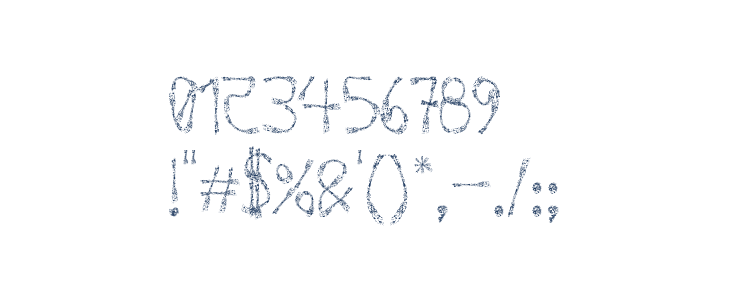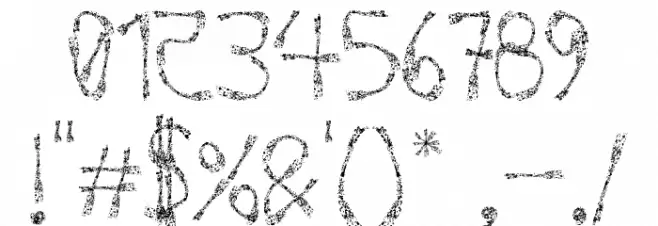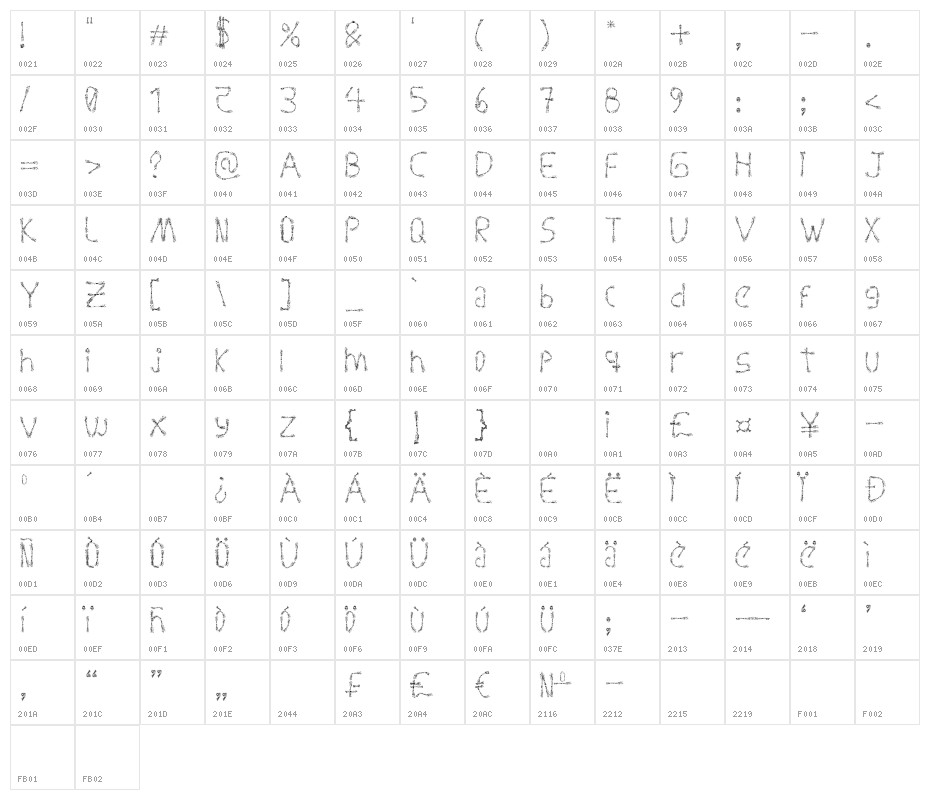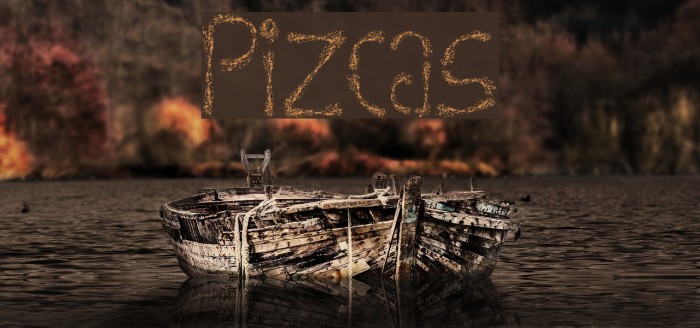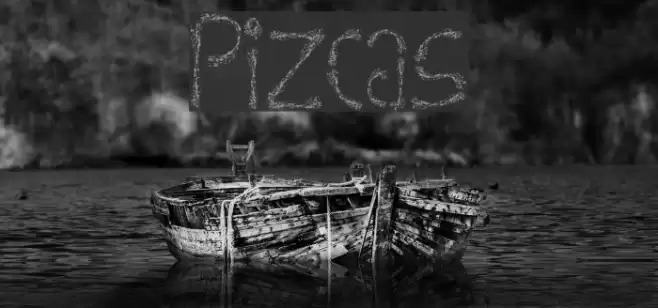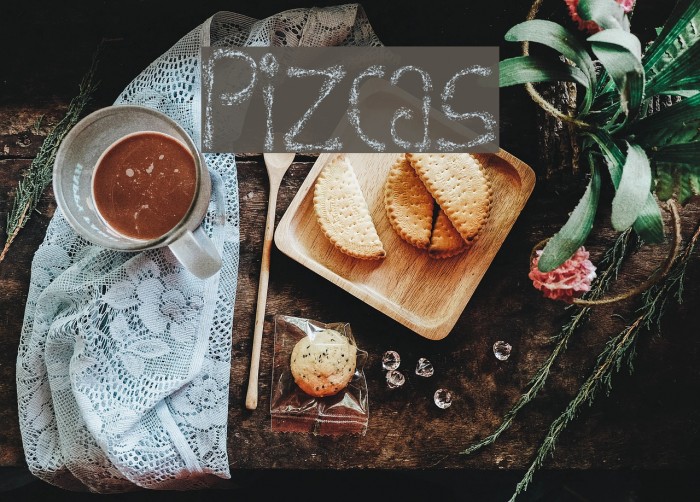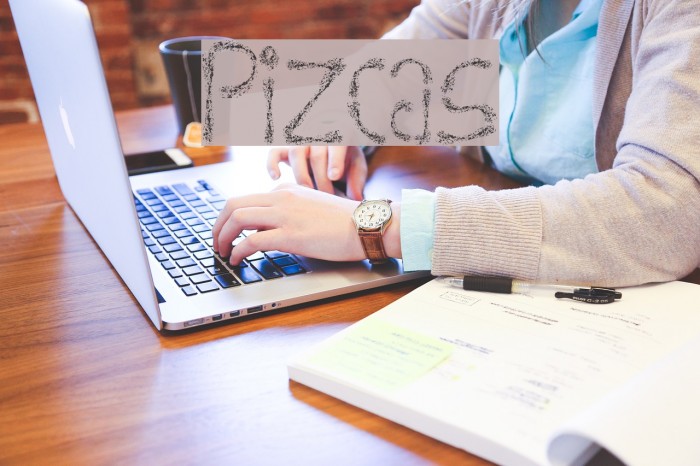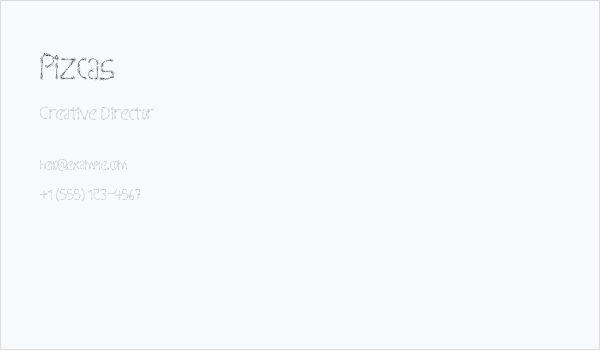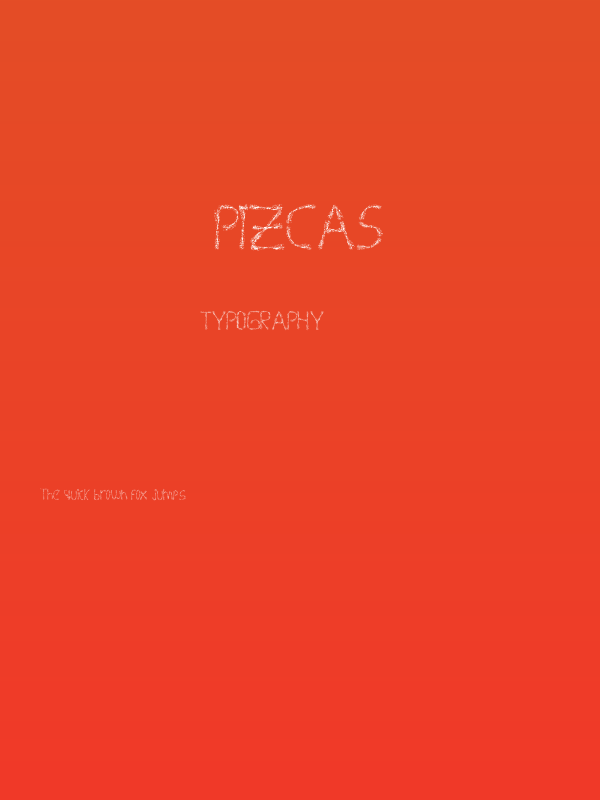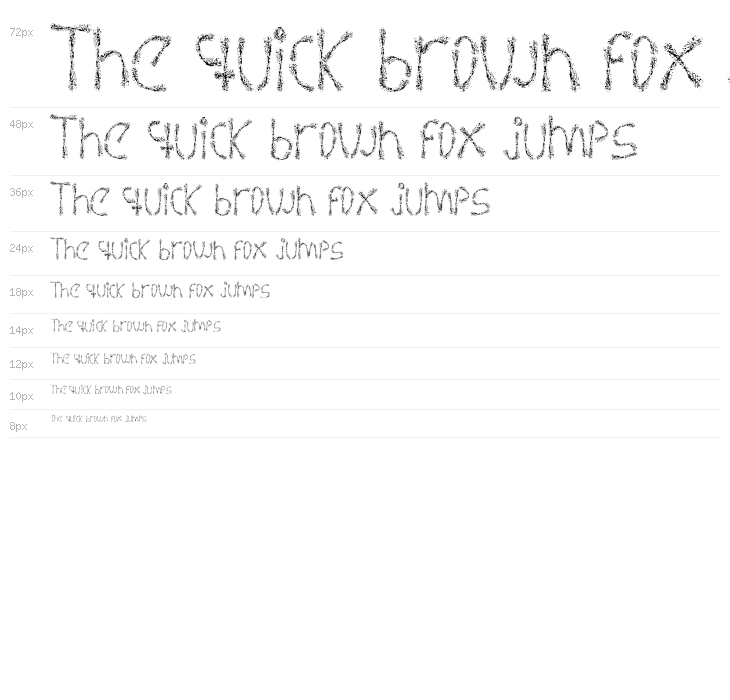
Pizcas Font
Pizcas Description
This font exhibits a unique, textured appearance reminiscent of chalk or crayon strokes, giving it a hand-drawn and artistic feel. The characters are irregular and slightly rough around the edges, contributing to a casual and informal style. Despite the rough texture, the letters maintain good legibility, with consistent height and spacing. The uppercase and lowercase letters are distinct, and the numerals are clear and easy to read. Special characters are included, matching the overall aesthetic. This font is ideal for projects that require a playful or creative touch.
| Overall Style | Artistic |
| Use Case | Headlines, Posters, Creative projects |
| Proposed Projects | Ideal for children's book covers, creative posters, art projects, and informal invitations. |